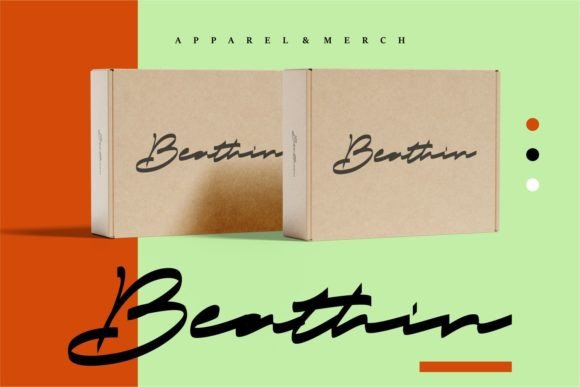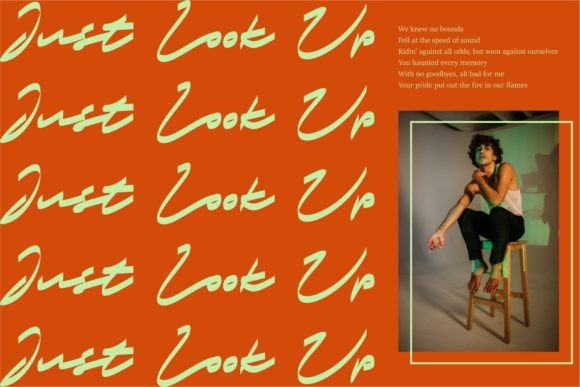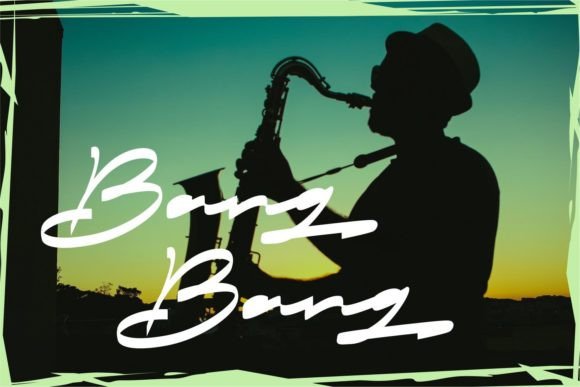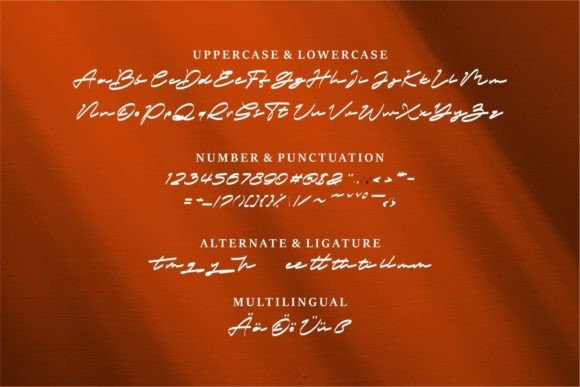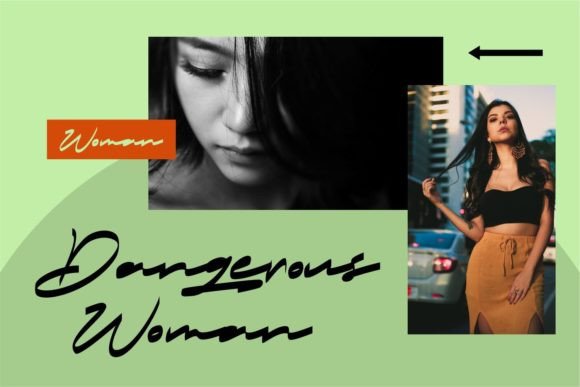
Oitalla Font
About Oitalla Font
Oitalla is a stylish and cool handwritten font. Fall in love with its incredibly distinct and timeless style and use it to create spectacular designs!